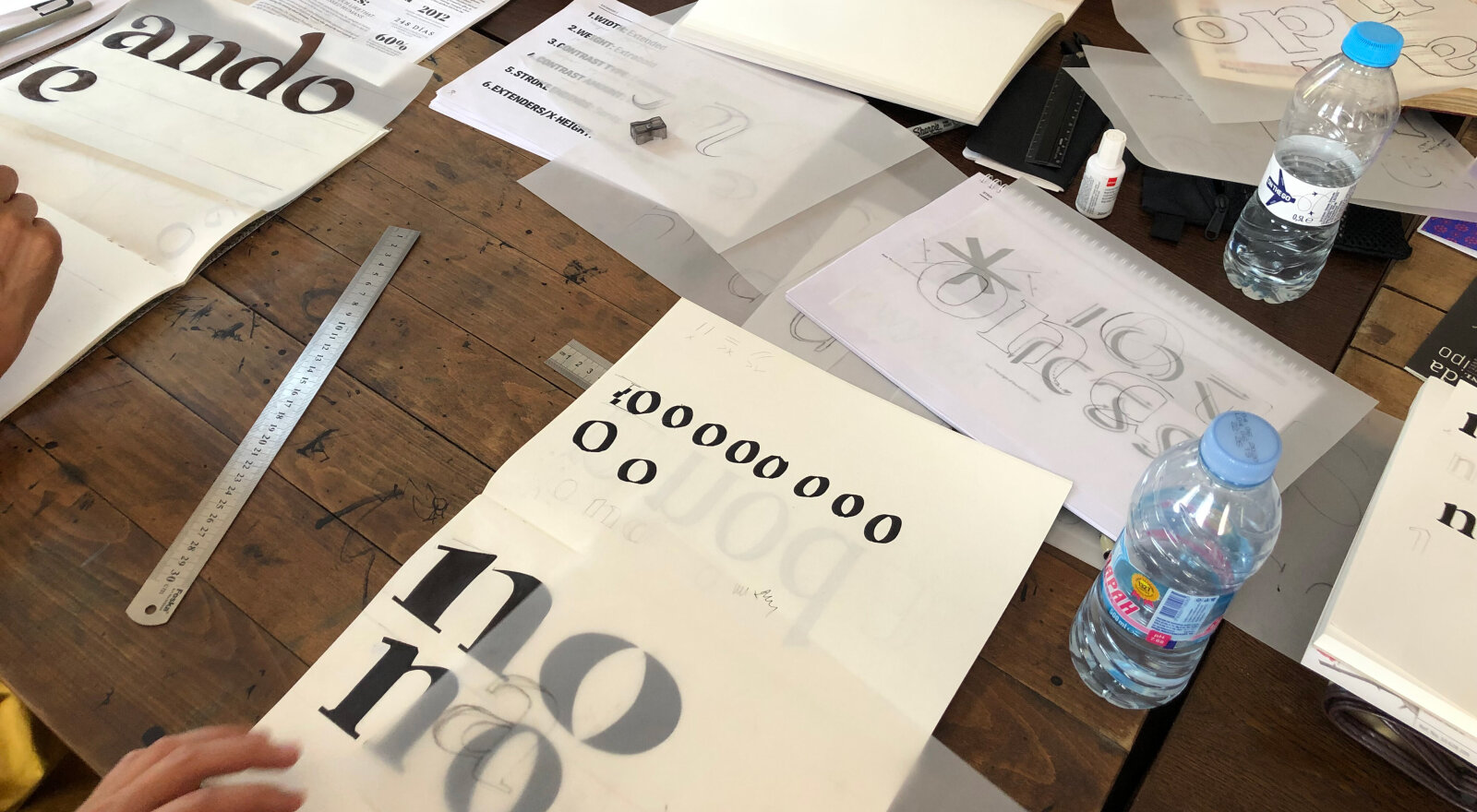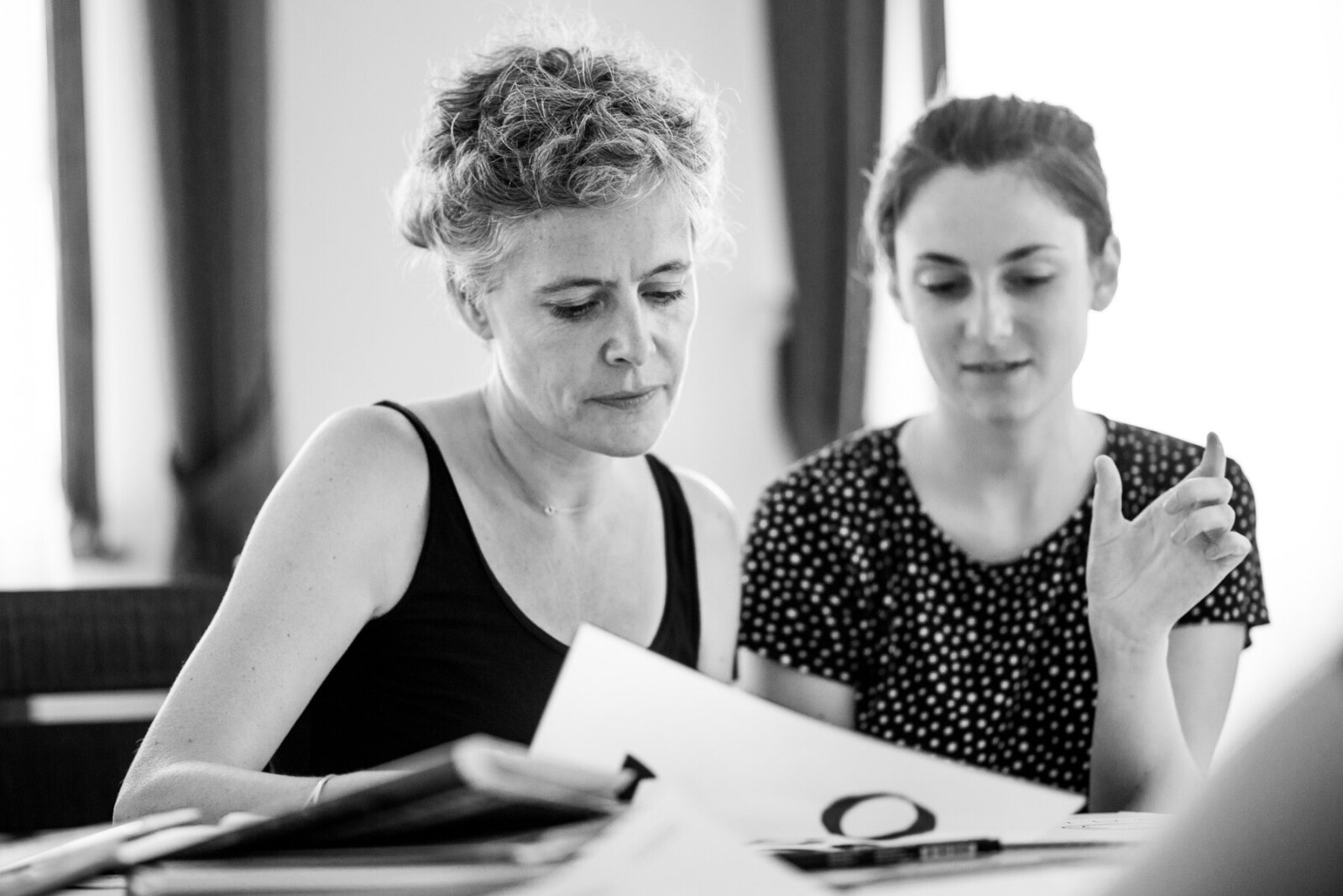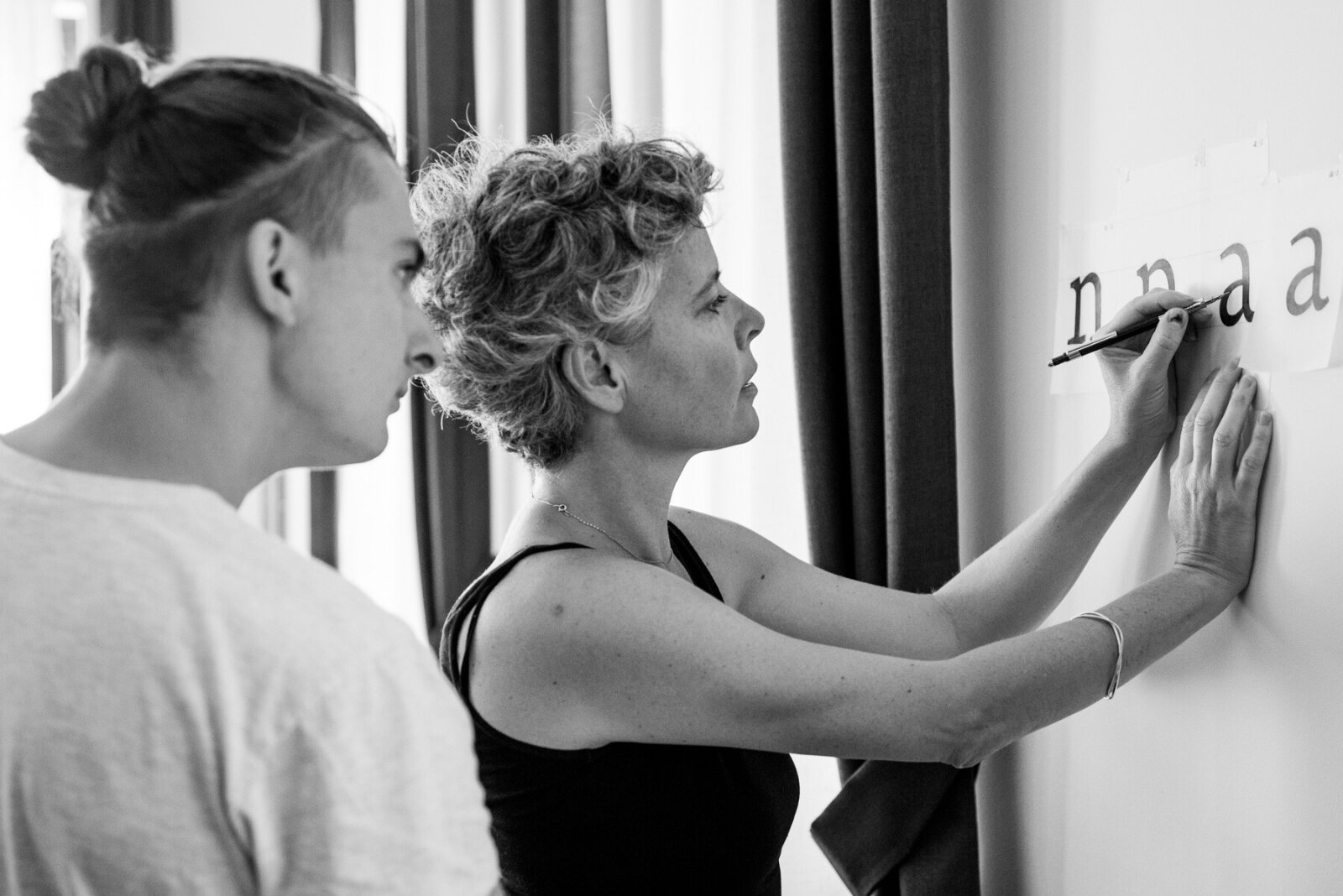
Veronika Burian leading a workshop in Bulgaria
Workshop in Tbilisi 2024
Introduction to Type Design with Veronika Burian
This two hour workshop, lead by Veronika Burian, offers analogue hands-on experience with lettershapes aimed at beginners. Advanced students are also welcome to bring their type project for receiving feedback. By means of tracing pre-selected letters, participants will experiment with structural elements of lettershapes such as contrast, connections, weight of strokes and proportions. The resulting characters will be openly discussed and corrections and alternatives will be shared among participants.
Methodology and objectives:
The workshop will consist of three different parts:
1. Tracing of characters,
2. Short briefs or lessons,
3. Open critic sessions.
By means of tracing pre-selected letters, participants will experiment with structural elements of lettershapes such as contrast, connections, weight of strokes and curve velocity. They will also learn the basics behind sketching an alphabet. This will be aided by short lessons that will establish essential knowledge units that support the theoretical framework and the concepts behind the exercises. The resulting characters will be openly discussed and corrections and alternatives will be shared among participants.